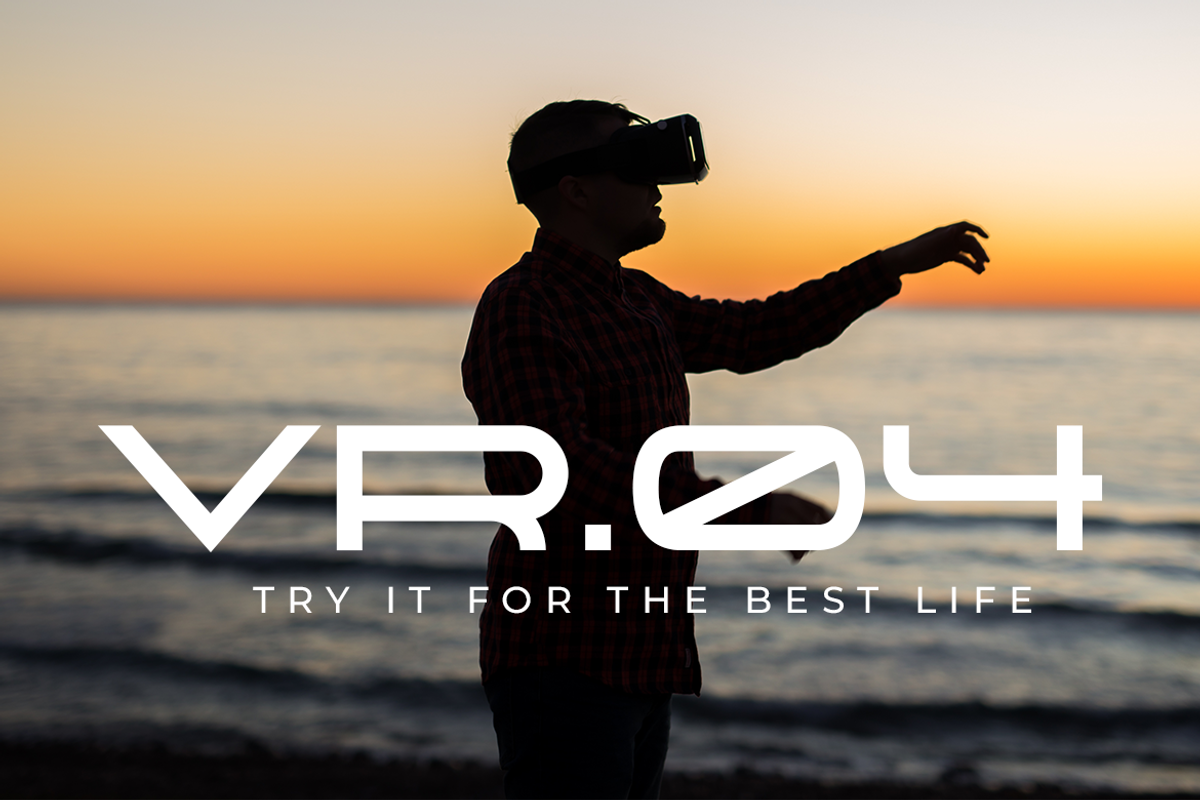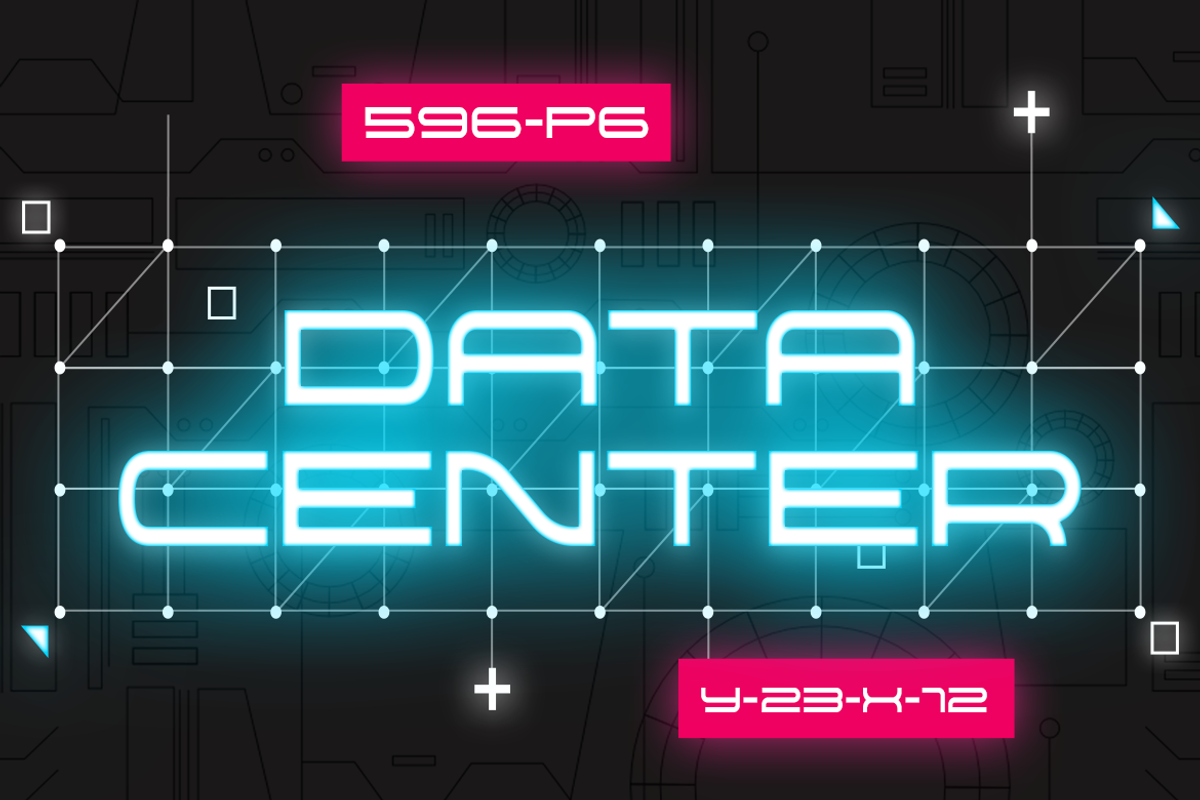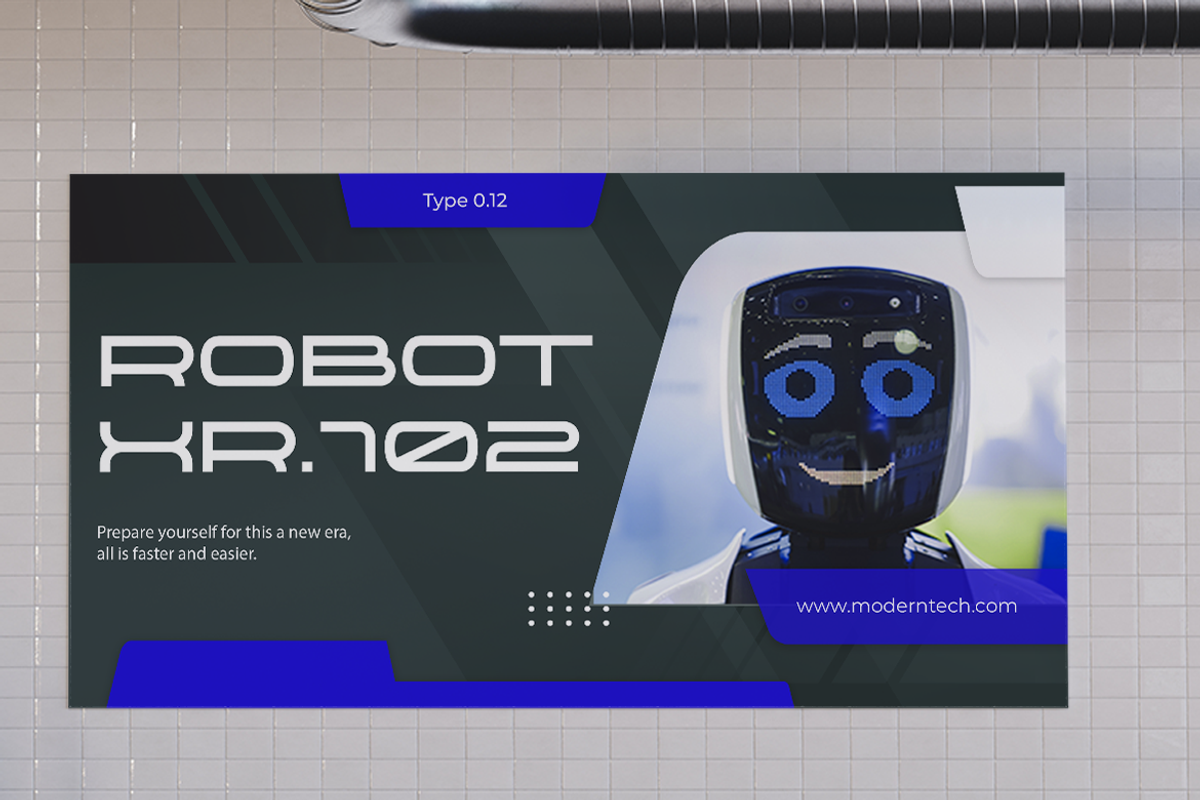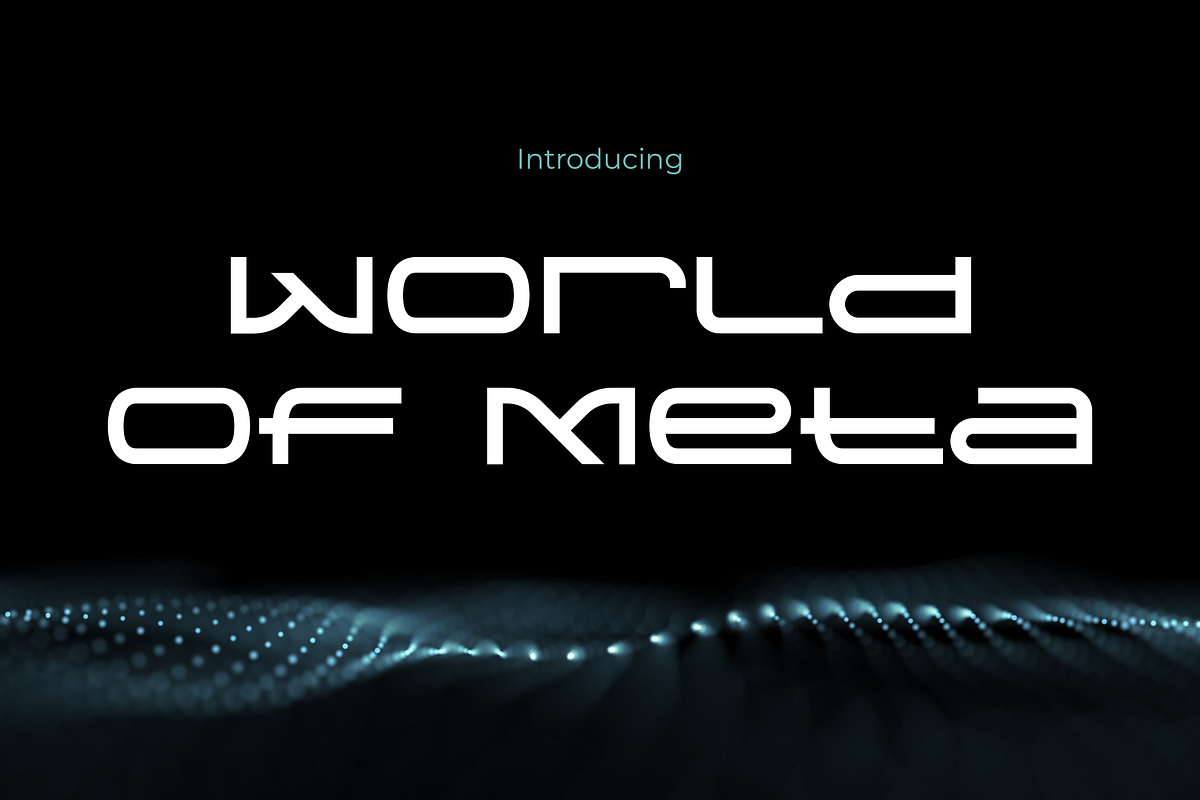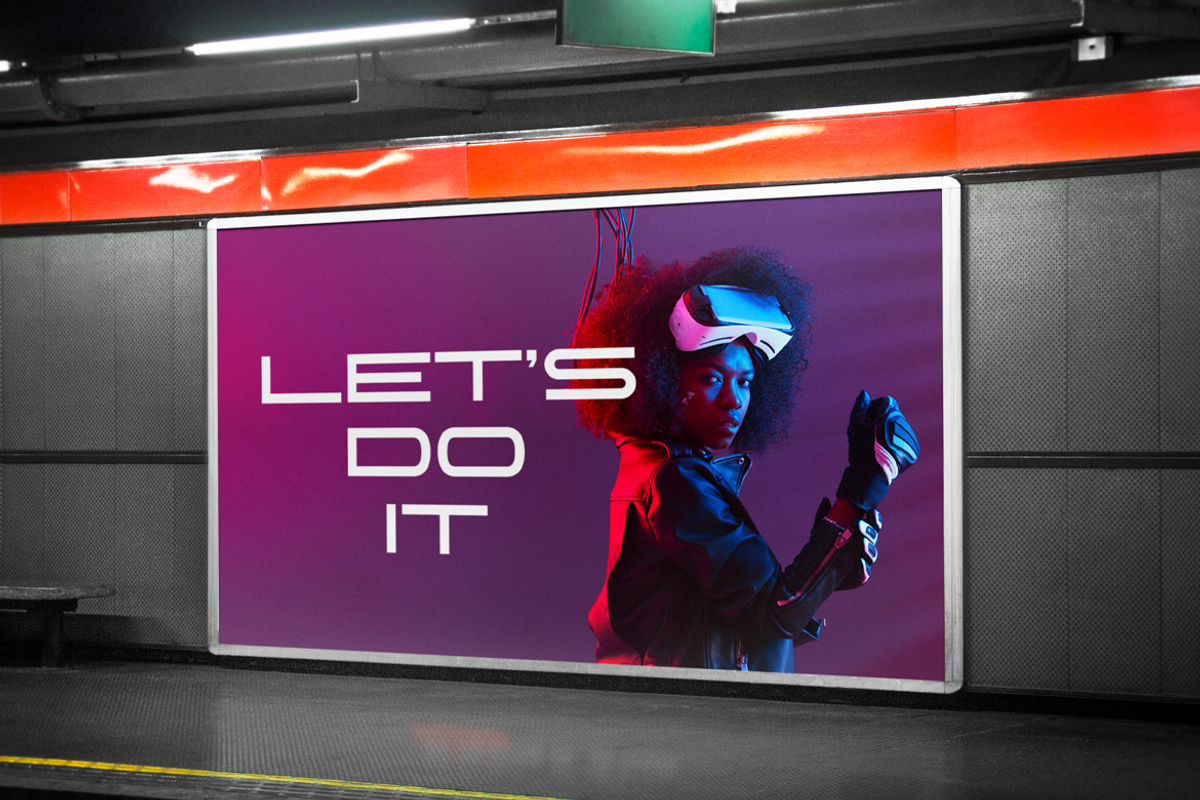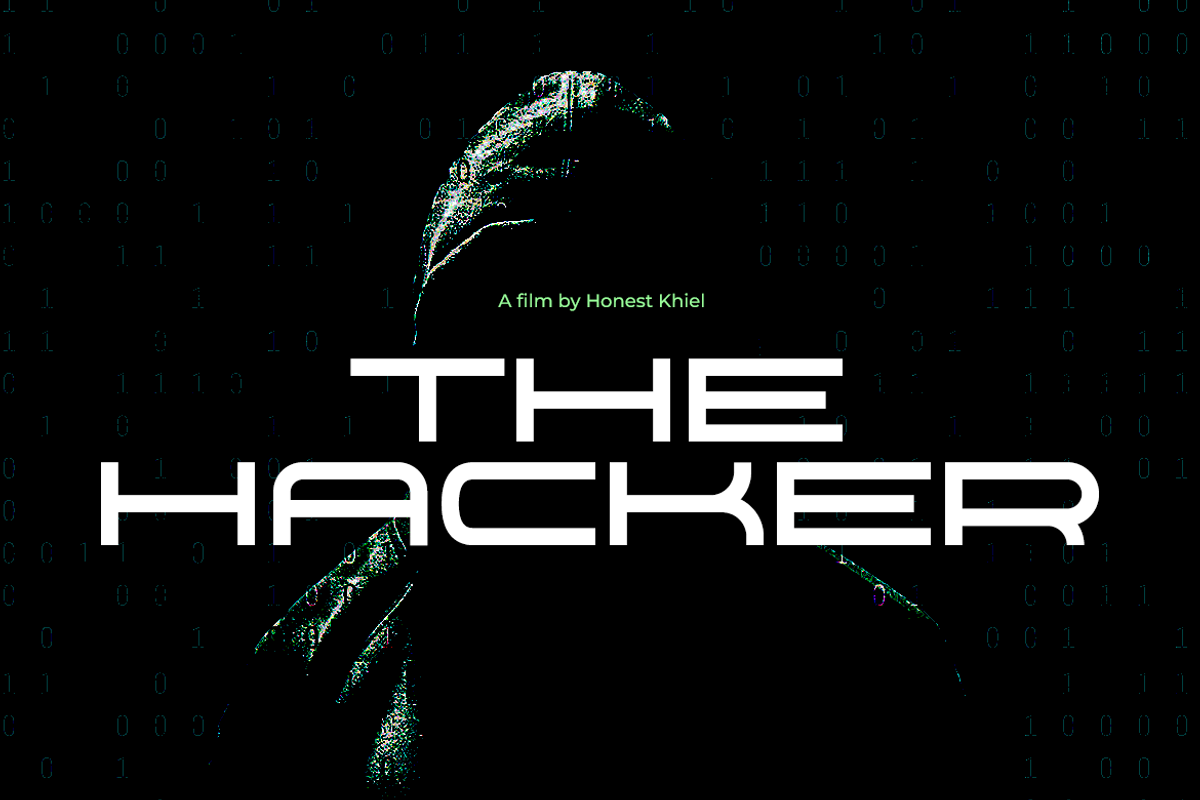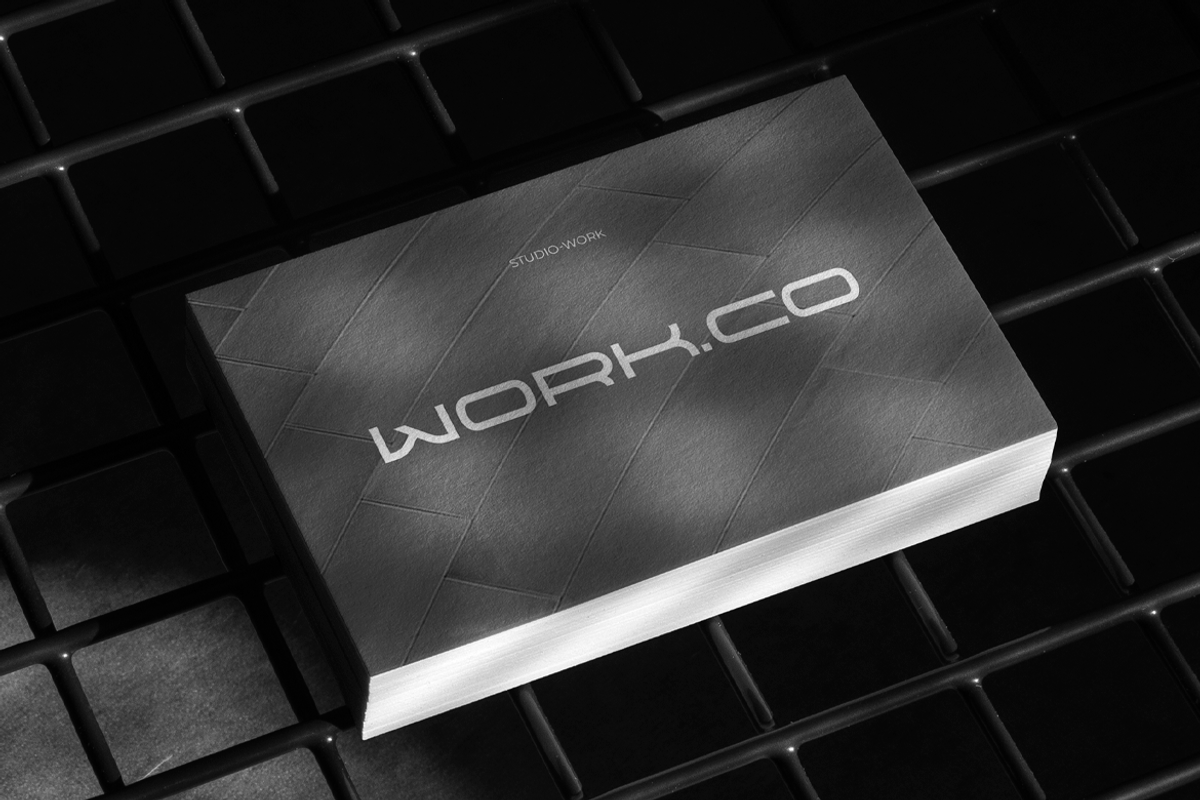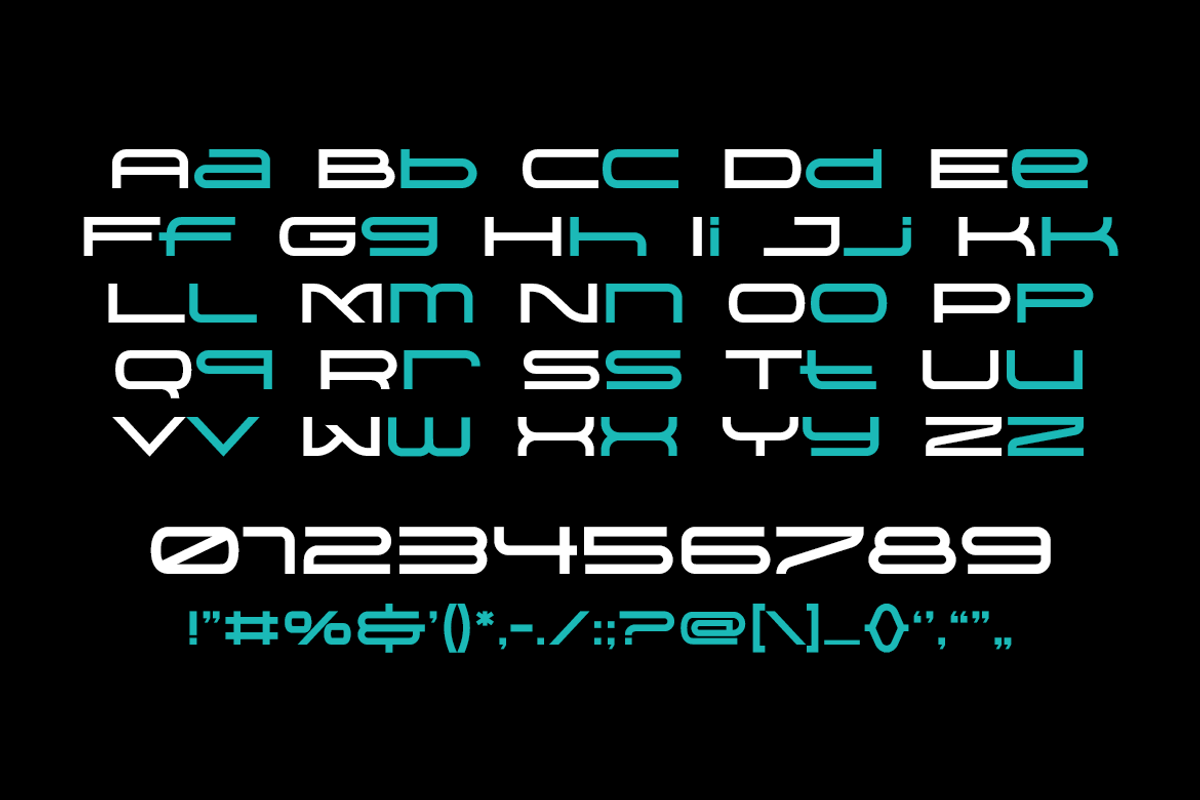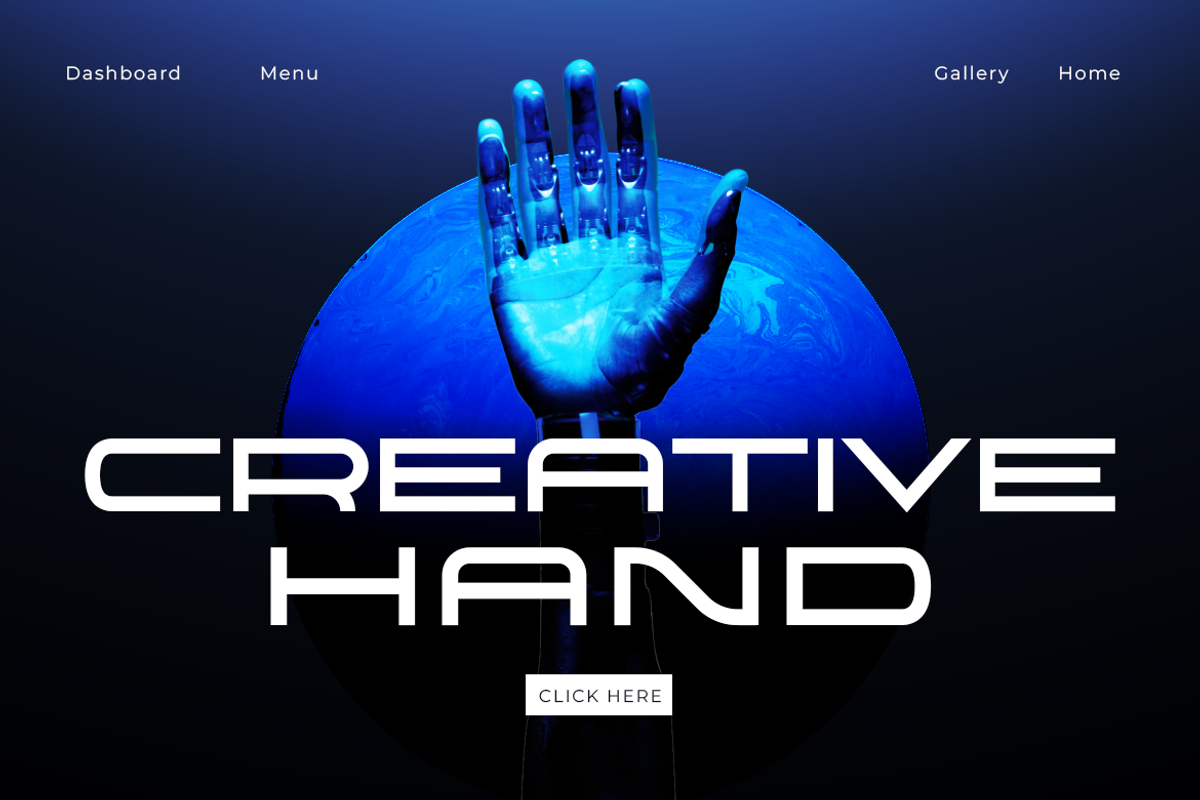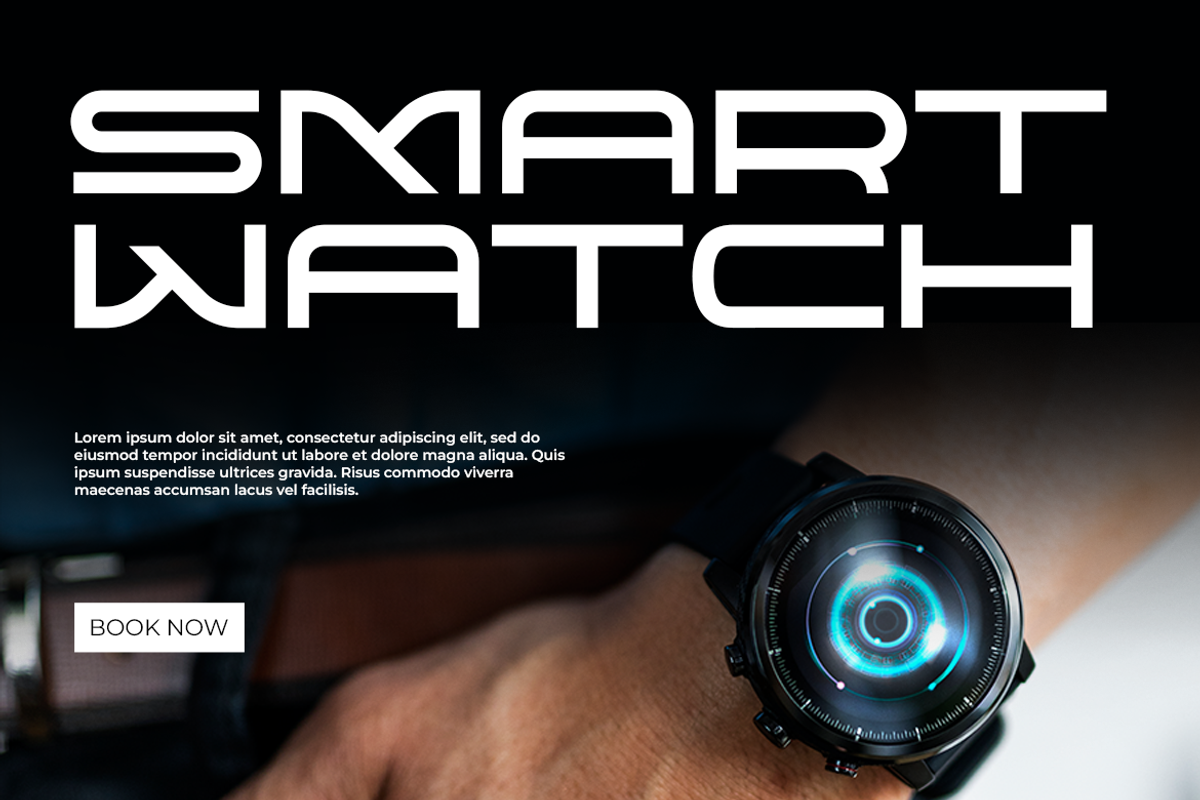
World of Meta
World of Meta – Dive into a Retro Handwritten Typeface Journey
Step into the enchanting realm of “World of Meta,” where nostalgia meets modernity in a captivating retro handwritten font. Each stroke exudes a sense of whimsy and personality, reminiscent of a bygone era yet perfectly suited for contemporary designs.
With “World of Meta,” your projects will transcend the ordinary, infusing them with a touch of vintage charm and authenticity. Whether you’re crafting invitations, branding materials, or social media graphics, this font will effortlessly elevate your creations, drawing in your audience with its unique character and warmth.
Embrace the timeless allure of handwritten typography with “World of Meta.” Let your imagination run wild as you explore the endless possibilities this font has to offer. Elevate your designs to new heights and transport your audience to a world where every word tells a story. Experience the magic of “World of Meta” today and unlock the secrets of retro-inspired creativity